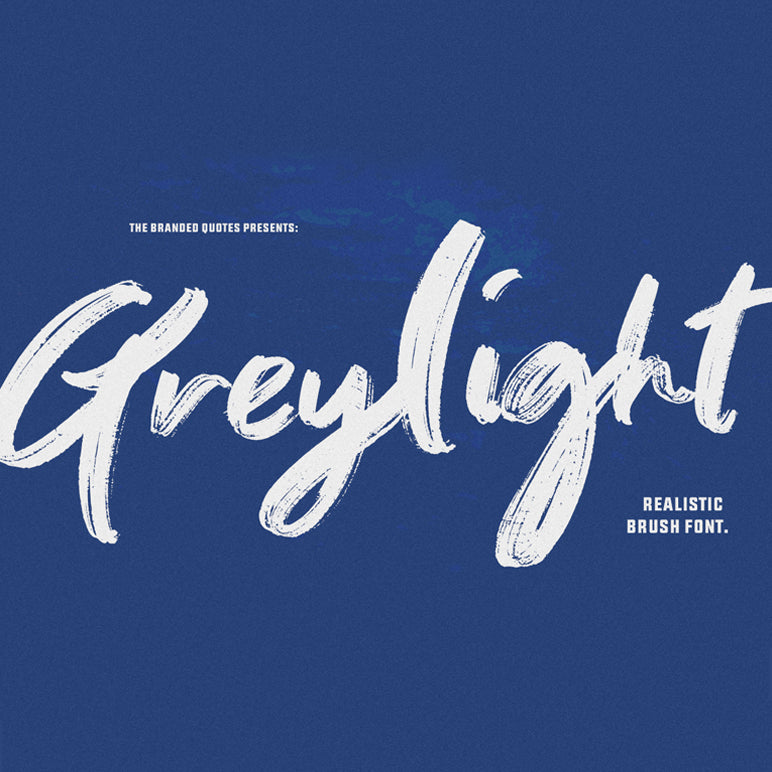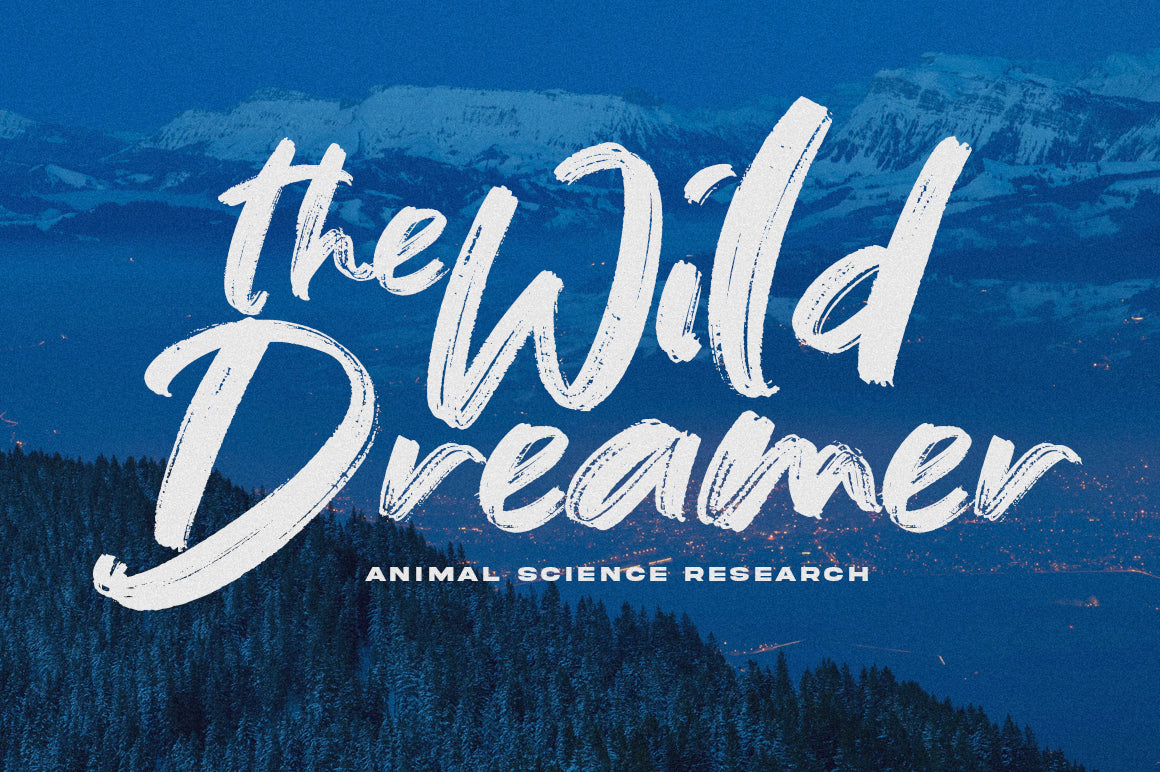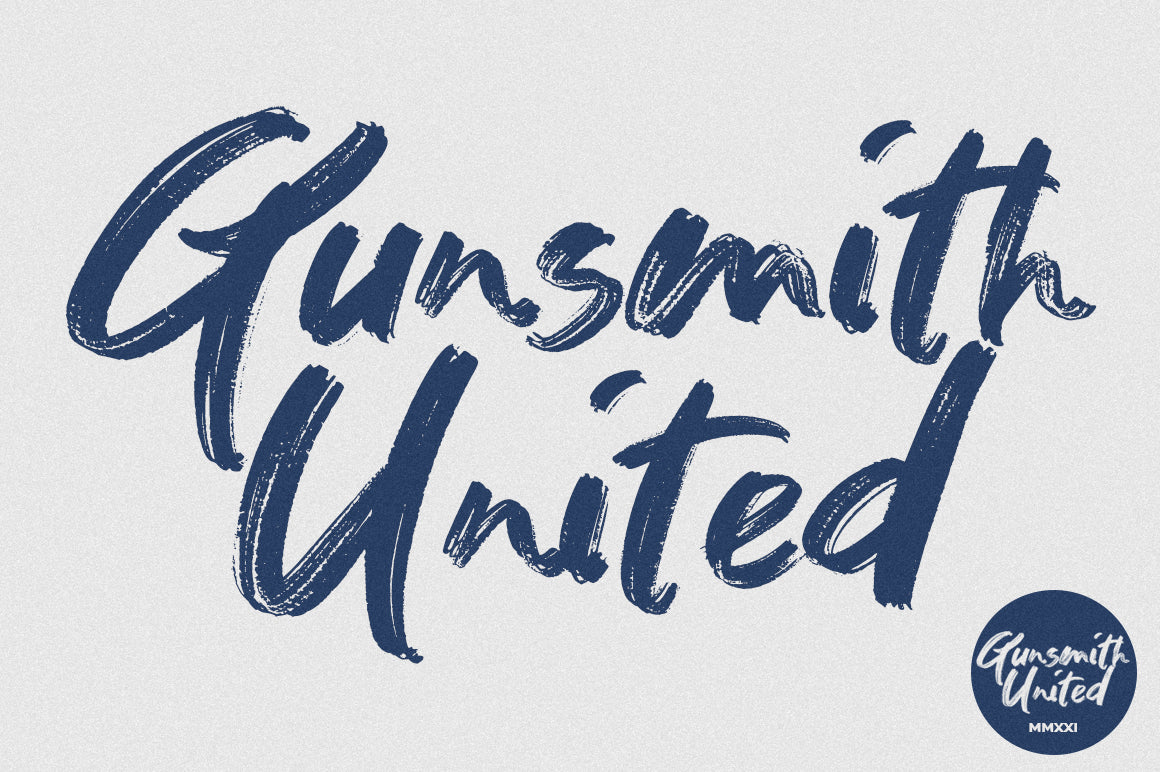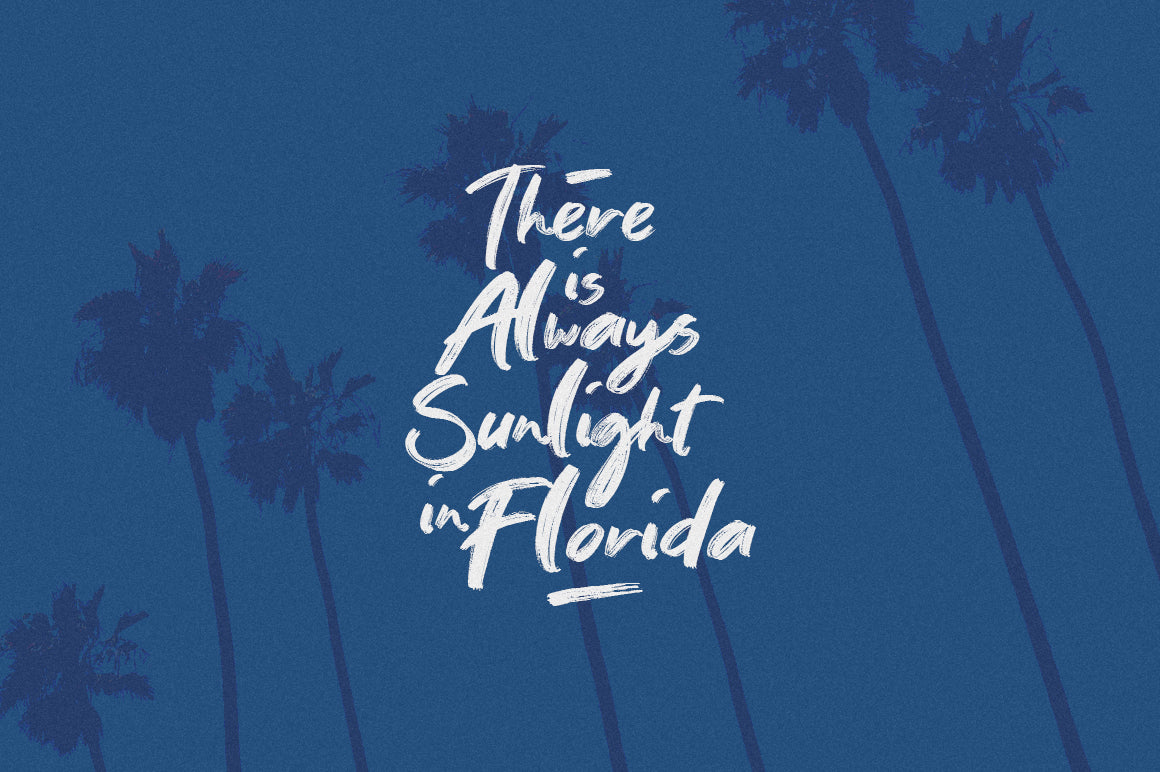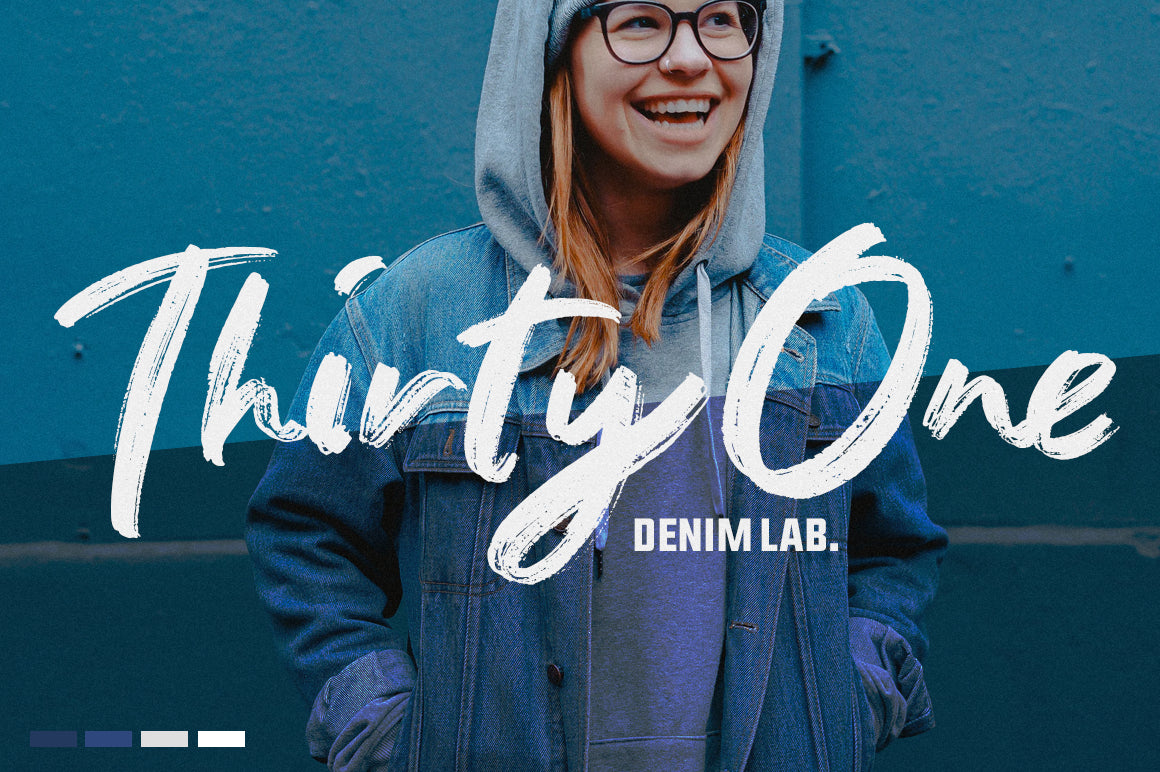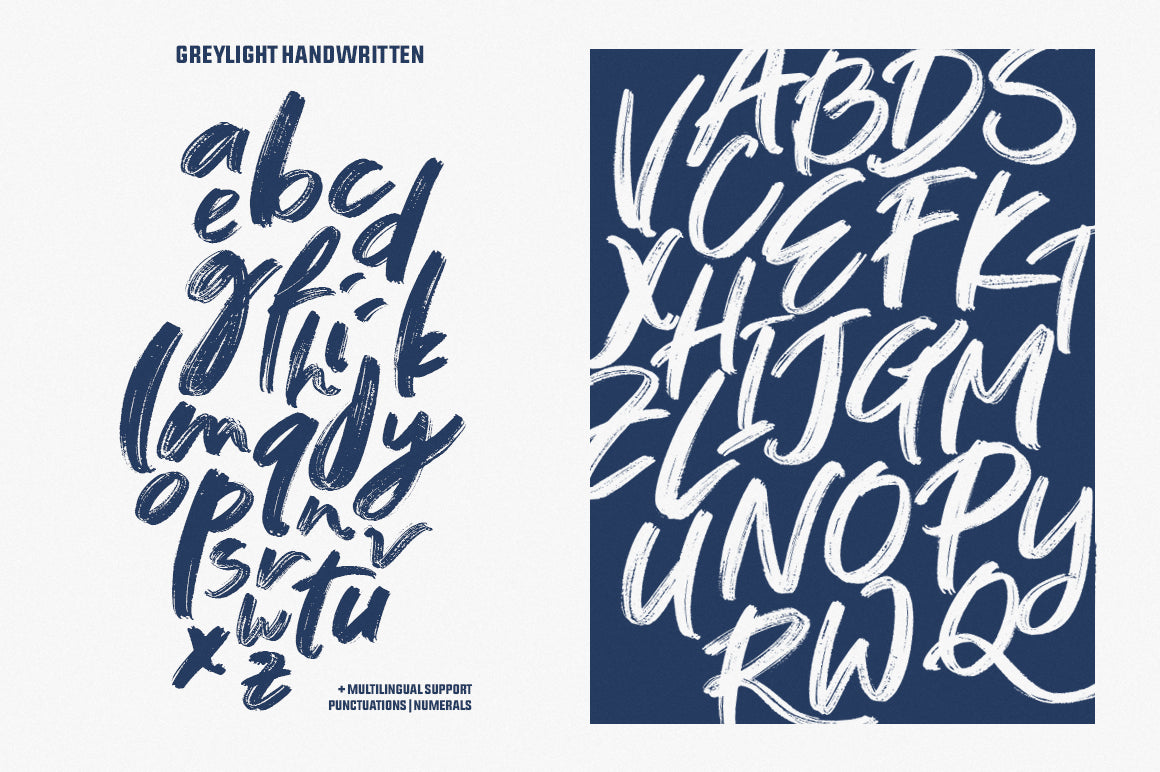
Greylight Brush Font
The Greylight Brush Font is a bold and straightforward realistic brush font available in OTF formats for both Regular and Italic styles. It features multilingual support, includes punctuation and numerals, and is designed to work effectively on both light and dark backgrounds.